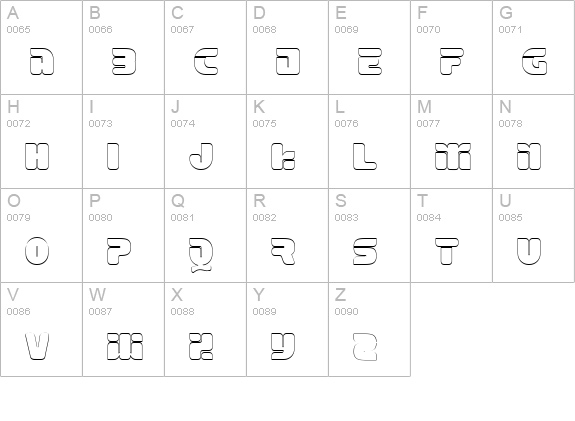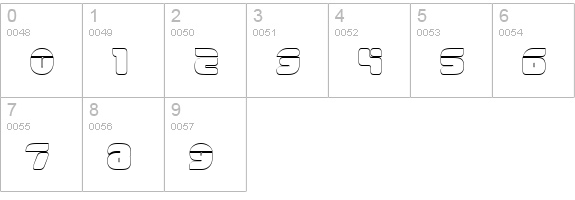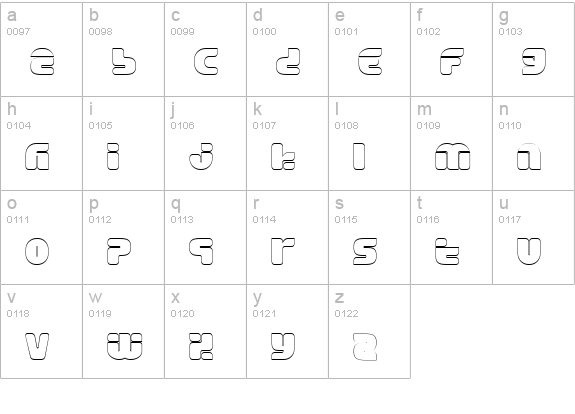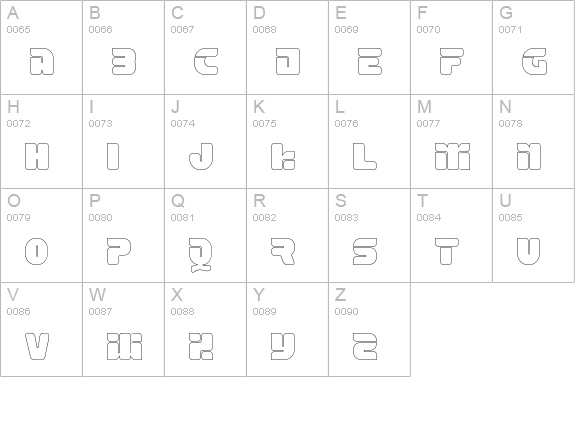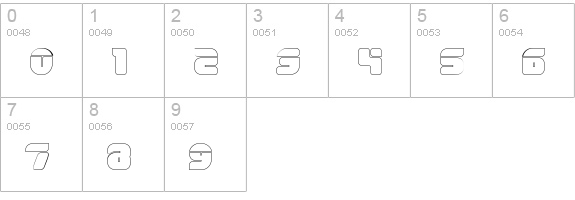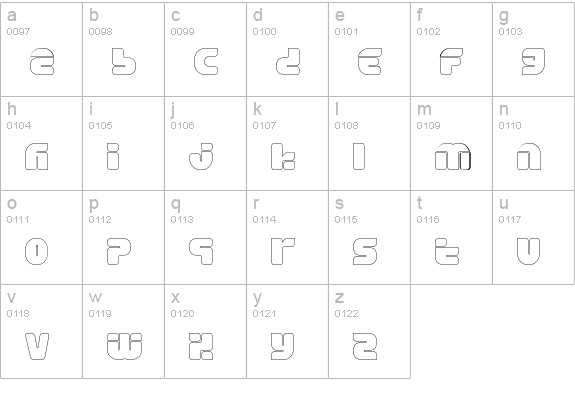
EraserFiveGuage font is a unique and modern typeface that exudes creativity and boldness. Its distinctive design features a combination of sharp edges and smooth curves, making it perfect for eye-catching headlines, posters, and branding projects. This versatile font adds a touch of edginess to any design, while maintaining readability and style. What sets EraserFiveGuage font apart is not only its striking appearance but also the fact that it is available for free download at FontsMarket.com. This means you can easily access and use this dynamic font in your projects without any cost. Whether you are a professional designer looking for a fresh font to elevate your work or a hobbyist exploring new creative tools, EraserFiveGuage font is a fantastic choice that won't break the bank. Don't miss out on the opportunity to enhance your designs with the bold and modern aesthetic of EraserFiveGuage font. Download it for free today at FontsMarket.com and start unleashing your creativity with this exciting typeface.